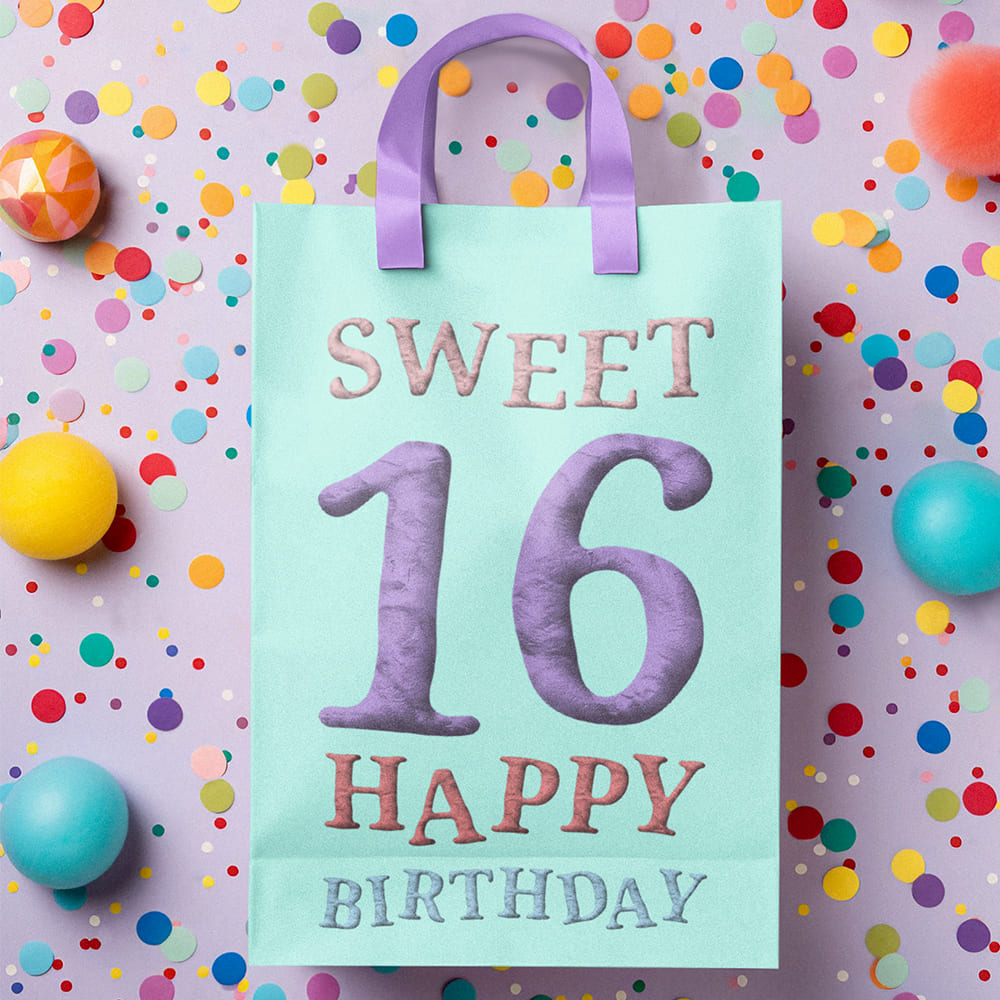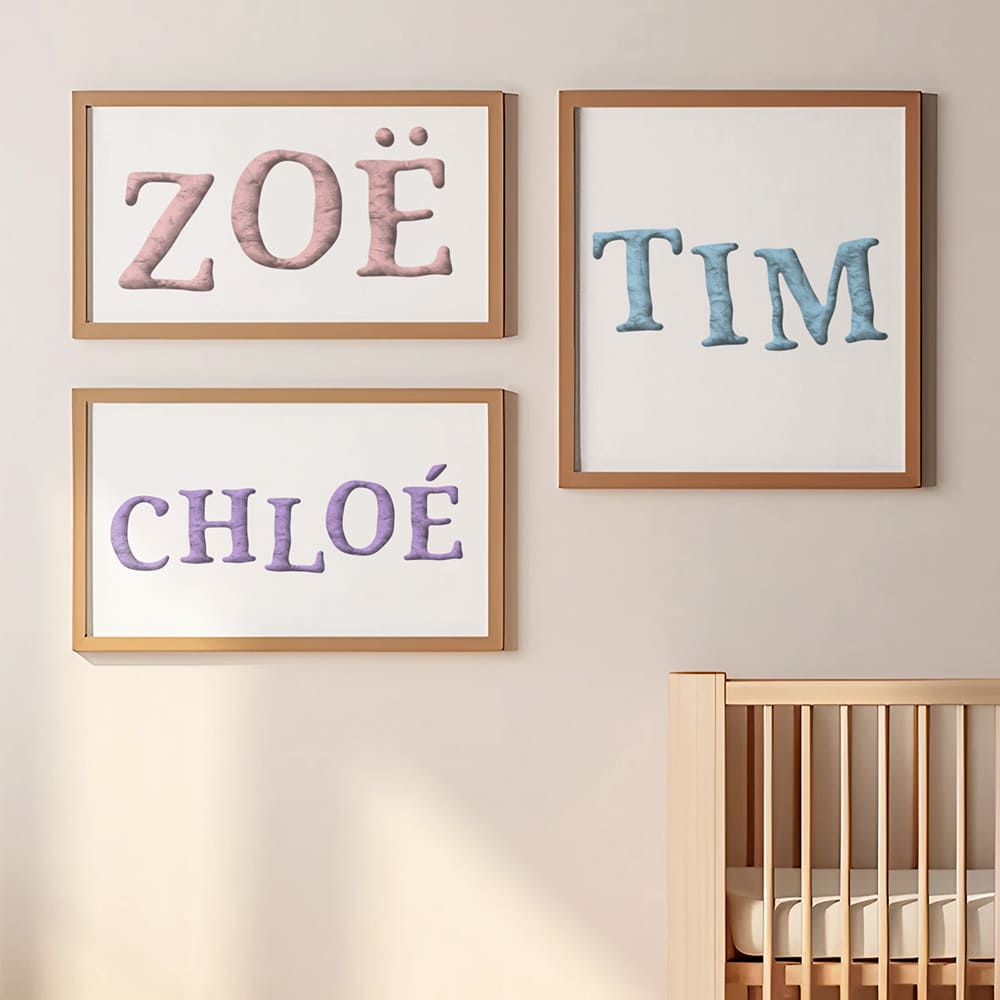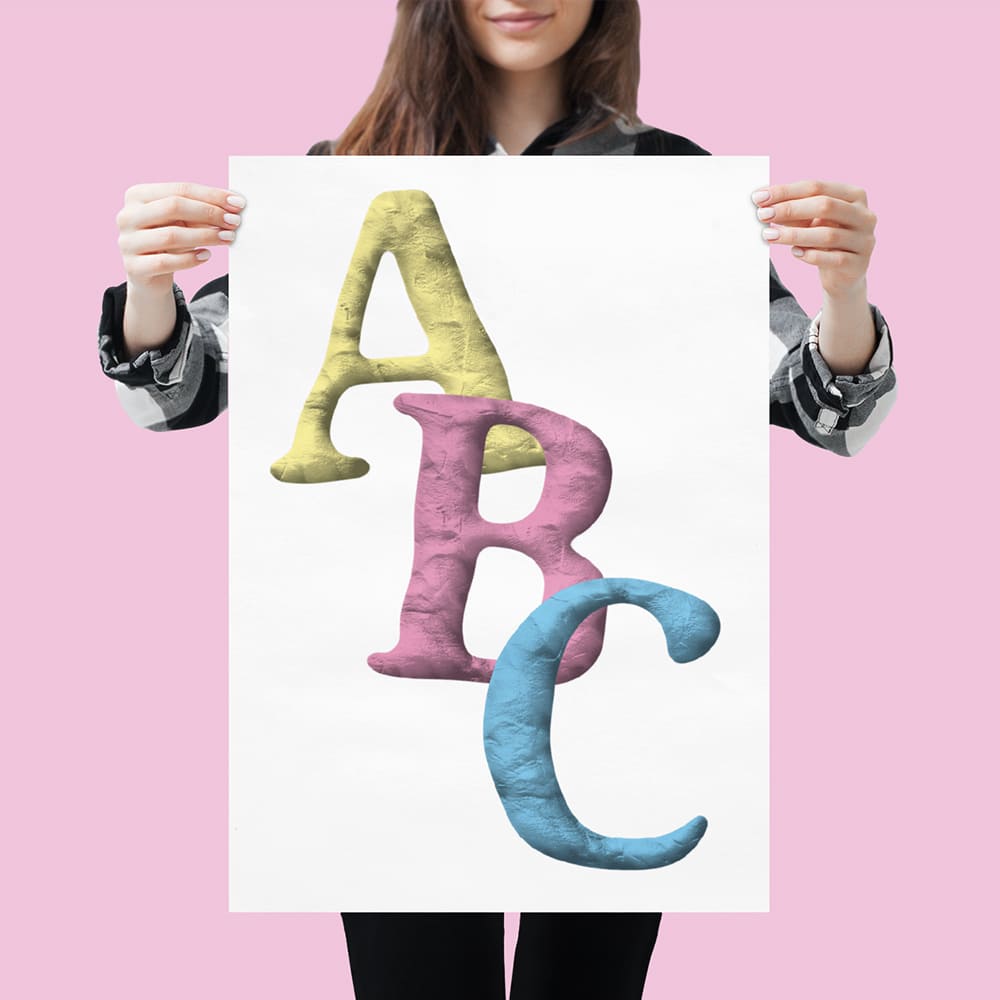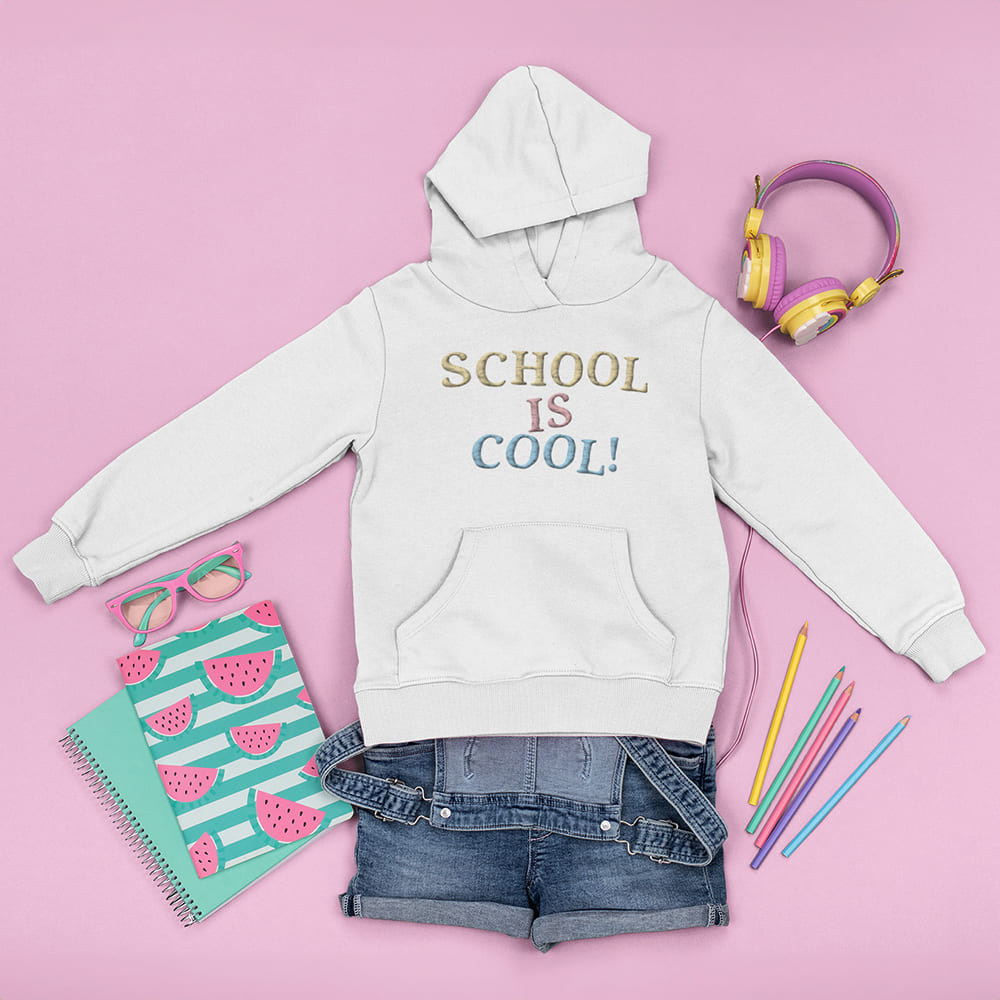
Jumping Plasticine Font
Font: Lively, Creative, Playful! π¨β¨ποΈ
Welcome to a world of color, movement, and creativity! The Jumping Plasticine Font blends the classic charm of a serif font with the handcrafted aesthetic of modeling clay β playful, dynamic, and full of life.
Why Choose the Jumping Plasticine Font?
πΉ A Serif Font with Character β Soft, sculpted edges and organic shapes give this font a unique, handmade feel.
πΉ Bouncy Letters in Motion β Each letter looks like it's joyfully bouncing, bringing a sense of fun and energy to your designs!
πΉ Perfect for Creative Projects β Whether it's childrenβs books, DIY branding, creative magazines, or social media, this font adds a touch of playful charm to any design.
πΉ Pastel Colors for a Soft Elegance β Available in multiple colors, including delicate pastel shades, enhancing the friendly and handcrafted look of this font.
Let Your Designs Bounce!
With the Jumping Plasticine Font, every message becomes fun, creative, and full of personality. Make your design unique, charming, and unforgettable!
πΉ Jump higher. Get creative. Choose the Jumping Plasticine Font!